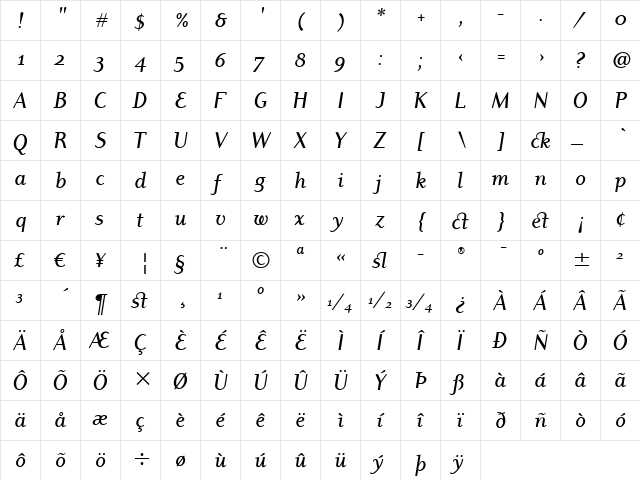
Dyadis ITC Medium Italic
Design Context for Dyadis ITC Typeface
Dyadis ITC offers clean, dependable letterforms without strong stylistic allegiance, making it a practical choice for designers who need flexibility. The dynamic lean of this cut emphasises speed and emphasis in any layout.
Pro Tip: Try Dyadis ITC for annotation and caption copy alongside an upright companion — the contrast in angle creates a dynamic but ordered typographic system.